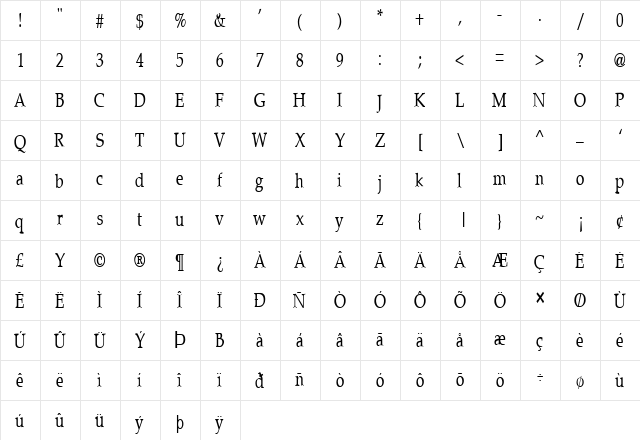
FZ ROMAN 21 COND Normal Font Preview
FZ ROMAN 21 COND Normal
FZ ROMAN 21 COND Normal Font Details
Design Context for FZ ROMAN 21 COND Typeface
FZ ROMAN 21 COND is a composed and adaptable typeface that performs quietly and consistently across a wide range of design contexts. The condensed width makes it efficient for tight spaces without sacrificing legibility.